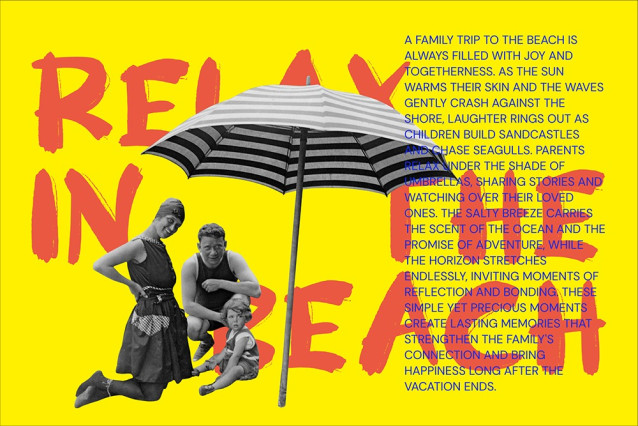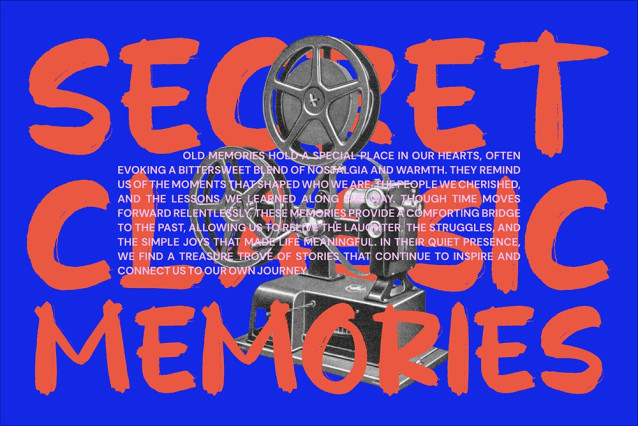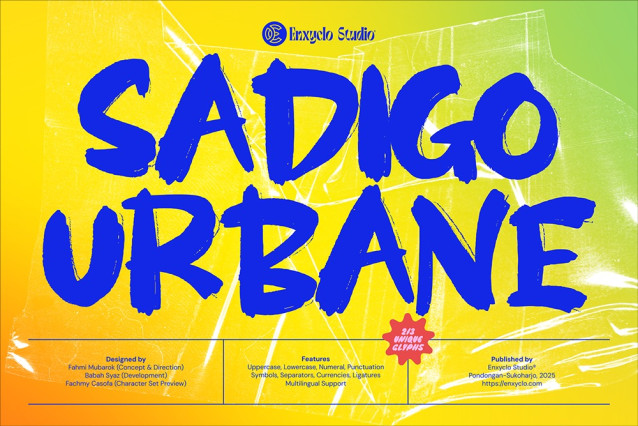
Sadigo Urbane Font
Sadigo Urbane Font is a bold and dynamic brush script font that exudes an urban, edgy vibe with its rough and textured strokes. This versatile typeface combines strength with artistic flair, making it perfect for eye-catching headlines, branding, posters, and packaging designs that demand attention. Featuring smooth flow and a handcrafted appearance, Sadigo Urbane adds a contemporary, rebellious touch while maintaining legibility and style, ideal for creatives looking to bring energy and personality to their projects.